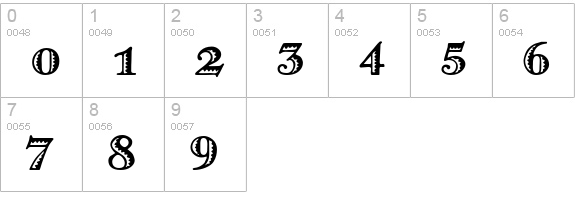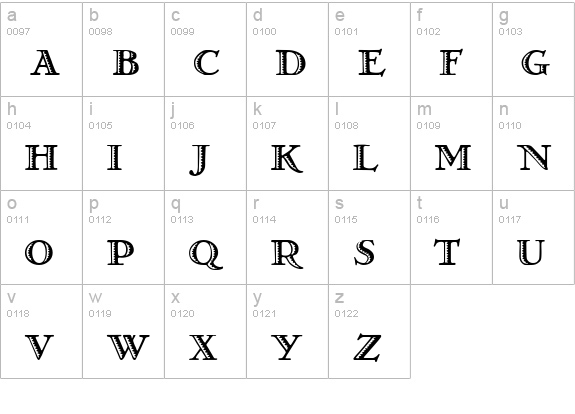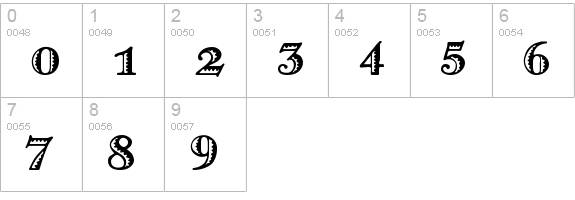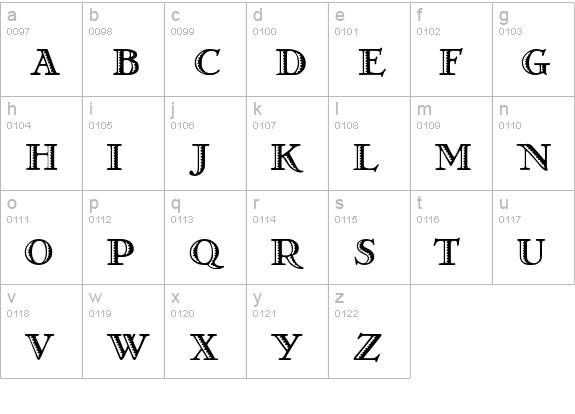
GrekoDeco Normal Font Details
GrekoDeco Normal is the standard, neutral variant in the GrekoDeco typeface family \xE2\x80\x94 well suited to general body text, paragraphs, and standard typographic work.
GrekoDeco Normal font is a versatile and stylish typeface that exudes elegance and sophistication. With its sleek lines and modern design, this font is perfect for a wide range of design projects, from branding to editorial layouts. The clean and crisp letterforms of GrekoDeco Normal make it easy to read while still adding a touch of flair to any text. One of the best things about GrekoDeco Normal font is that it is free to download at FontsMarket.com. This means that you can easily access this premium quality font without having to break the bank. Whether you are working on a personal project or a professional assignment, GrekoDeco Normal font provides a high-quality typographic solution that will elevate your designs to the next level. Download GrekoDeco Normal font today and add a touch of sophistication to your projects with this elegant and stylish typeface.